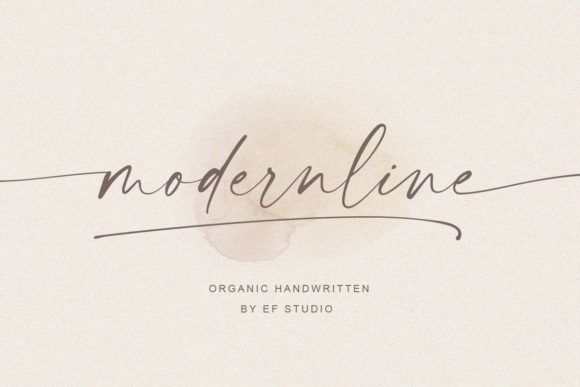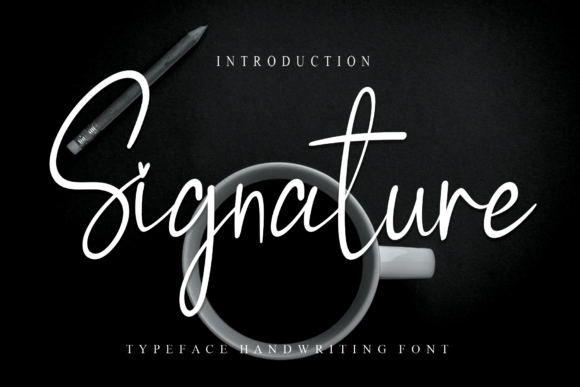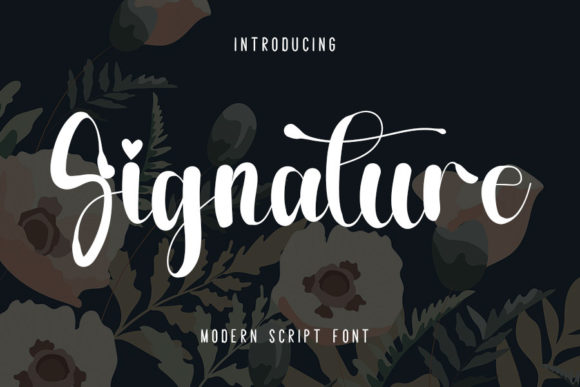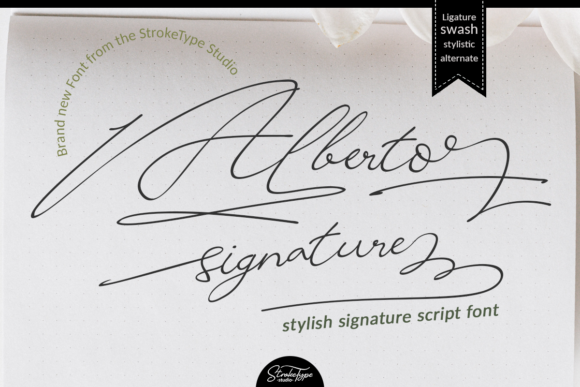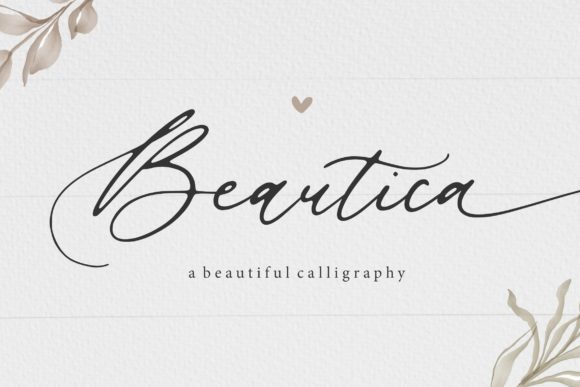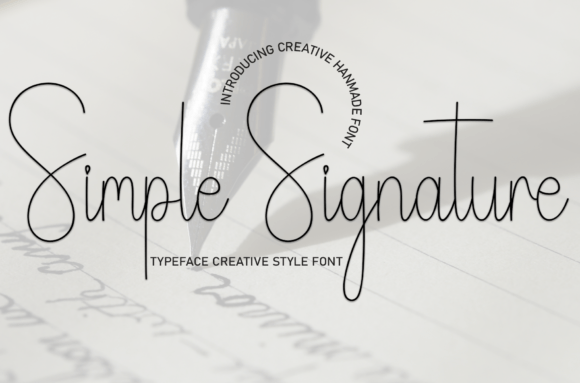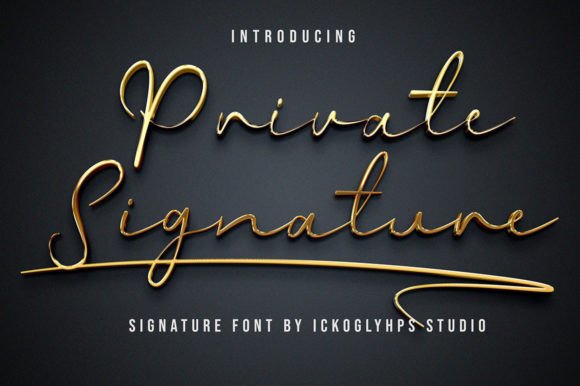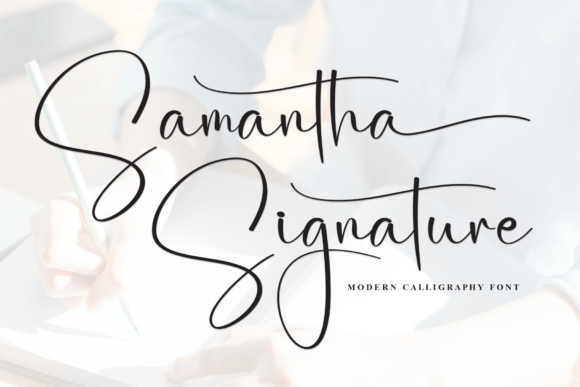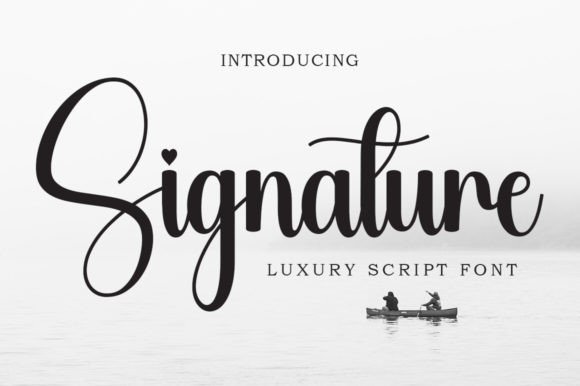
18 Stylish Signature Fonts for a Personal Brand
Signature Fonts & Personal Branding
Discover elegant signature and script fonts for personal branding, logos, social media, photography, creative businesses, websites, packaging, stationery, and polished handwritten-style designs.
Why signature fonts work so well for personal brands: Signature fonts can give a brand a personal, expressive, and handcrafted feel. Their handwritten appearance works especially well for names, initials, logos, social media graphics, photography brands, creative services, and businesses that want a more personal visual identity.
How to Choose a Signature Font
The best signature font depends on the personality you want your personal brand to communicate. Some script fonts feel elegant and refined, while others look casual, modern, romantic, or distinctly handwritten.
Before choosing a font, consider where your signature will appear most often. A font that looks beautiful as a large logo may not work as well in a small social media avatar or website header. Readability, letter connections, spacing, and overall visual balance are especially important for personal branding.
18 Best Signature Fonts for a Personal Brand
This collection features 18 stylish signature fonts with different handwritten, calligraphic, elegant, and modern personalities. Use them for personal logos, business names, photography branding, social media content, packaging, invitations, websites, and creative projects.
Sign Rathi signature font
01 · Elegant Signature
Sign Rathi
Sign Rathi is a signature-style font designed for personal and expressive branding. Its handwritten character can help create a logo or name treatment that feels personal and distinctive.
Best for: Personal logos, social media branding, signatures, photography, and creative businesses.
02 · Modern Script
Modernline
Modernline combines a contemporary feel with the natural movement associated with handwritten typography. It can add a stylish personal touch to names, wordmarks, and modern creative identities.
Best for: Modern personal brands, logos, lifestyle businesses, social media, and websites.
03 · Flowing Signature
Breathine
Breathine brings a flowing handwritten quality to branding and display typography. Its expressive direction makes it useful when a personal brand needs a softer, more artistic typographic identity.
Best for: Creative logos, beauty brands, photography, lifestyle content, and stationery.
04 · Elegant Calligraphy
Andalucia
Andalucia offers an elegant script direction with a refined handwritten character. It is a strong choice for brands that want their name to feel graceful, stylish, and distinctly personal.
Best for: Personal branding, beauty businesses, wedding brands, photography, and elegant logos.
05 · Stylish Signature
Bailenson
Bailenson has a polished signature-style personality that can bring elegance and individuality to a personal brand. It works particularly well when a name or wordmark is intended to feel like a handwritten signature.
Best for: Personal logos, fashion branding, photography, social media, and creative portfolios.
06 · Decorative Signature
Bacalisties
Bacalisties adds an expressive calligraphic quality to signature typography. Its decorative character can help a personal brand stand apart while keeping the overall wordmark elegant and handcrafted.
Best for: Personal branding, boutique businesses, beauty logos, stationery, and packaging.
07 · Beautiful Calligraphy
Beautica Beautiful Calligraphy
Beautica Beautiful Calligraphy is suited to refined, decorative branding where elegant letterforms are part of the visual identity. Its calligraphic character can work beautifully for names and feminine or lifestyle-focused brands.
Best for: Beauty brands, wedding businesses, personal logos, stationery, and elegant packaging.
08 · Personal Signature
Private Signature
Private Signature focuses directly on the personal quality that makes signature fonts useful for branding. It can give names and short wordmarks a more intimate, handwritten appearance.
Best for: Personal brands, consultants, photographers, creators, and social media identities.